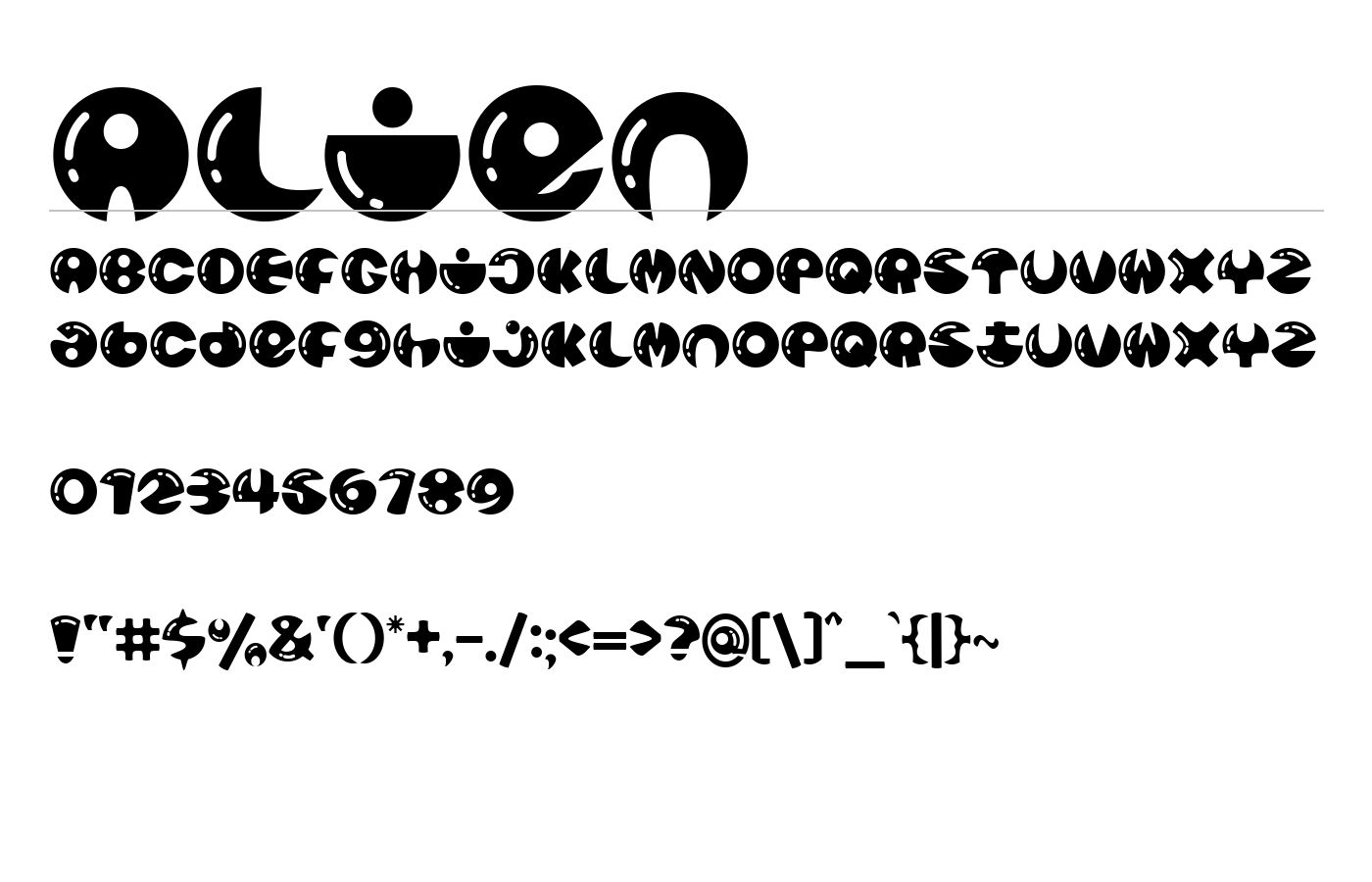
Alien Font is a bold, playful sans serif typeface with a futuristic, sci-fi vibe. Its rounded, heavy forms and quirky cutouts create a unique, alien-like appearance that suits fun, imaginative designs and headlines in entertainment or creative tech branding. This font works best for eye-catching logos, posters, and display text where a distinctive, otherworldly style is needed.
Alien Font
About Alien Font
| Font family | Alien Font |
| Designer | Rusdin Hendarsono |